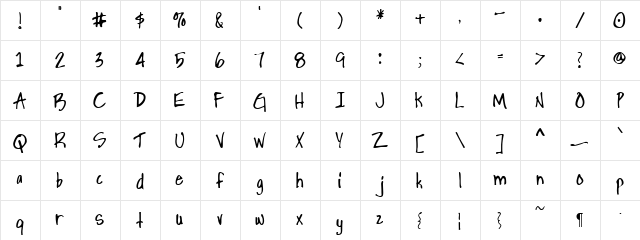
HandPrinting Normal Font Preview
HandPrinting Normal
Design Context for HandPrinting Typeface
HandPrinting flows with the natural rhythm of handwritten lettering, making it ideal for designs that call for warmth and personal expression.
Font Pairing: Combine HandPrinting with a simple geometric sans for maximum contrast — the tension between flowing curves and clean structure is a classic typographic pairing.
Pro Tip: Pair HandPrinting with a clean sans-serif for supporting text. The contrast between fluid script and geometric structure creates an elegant typographic hierarchy.